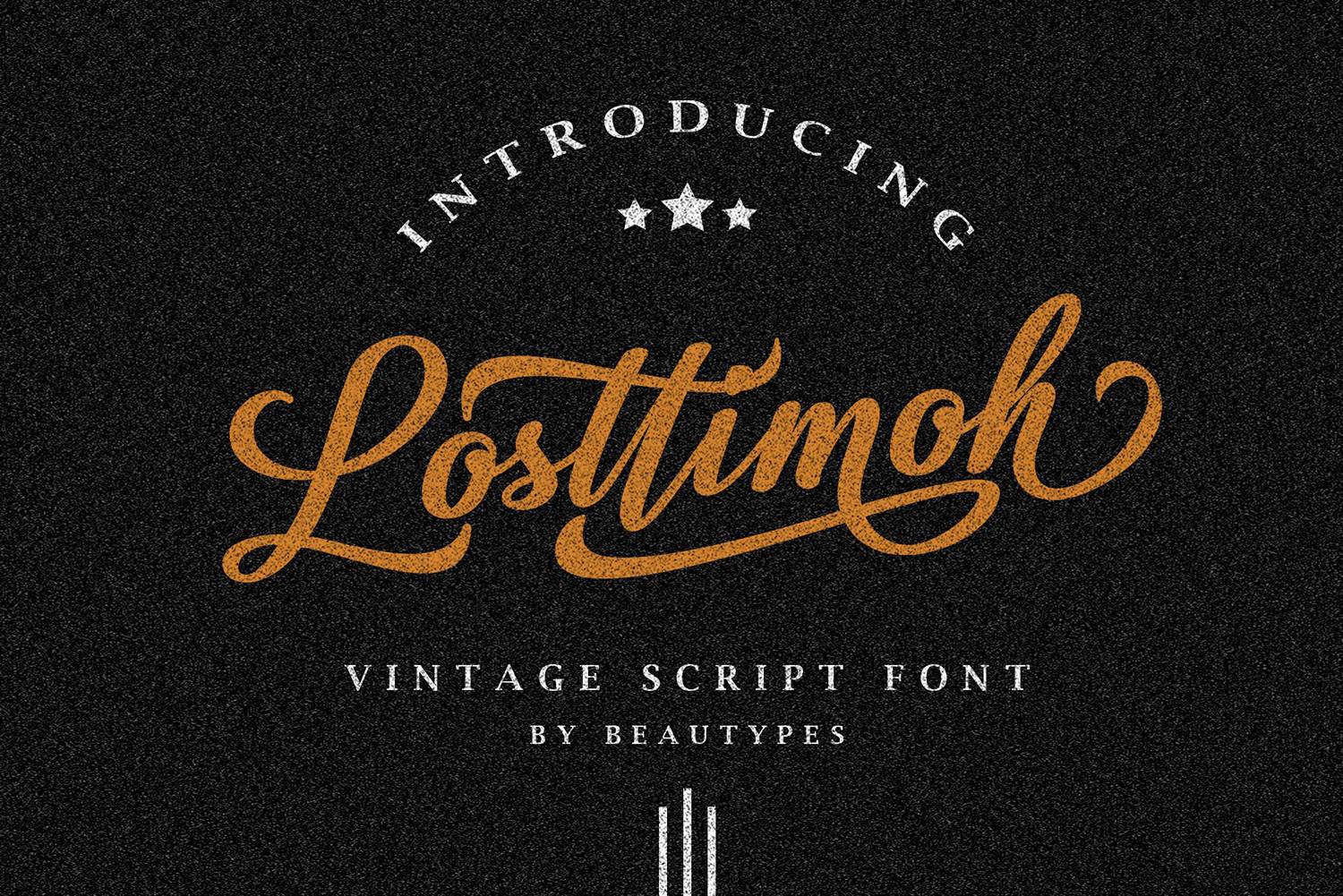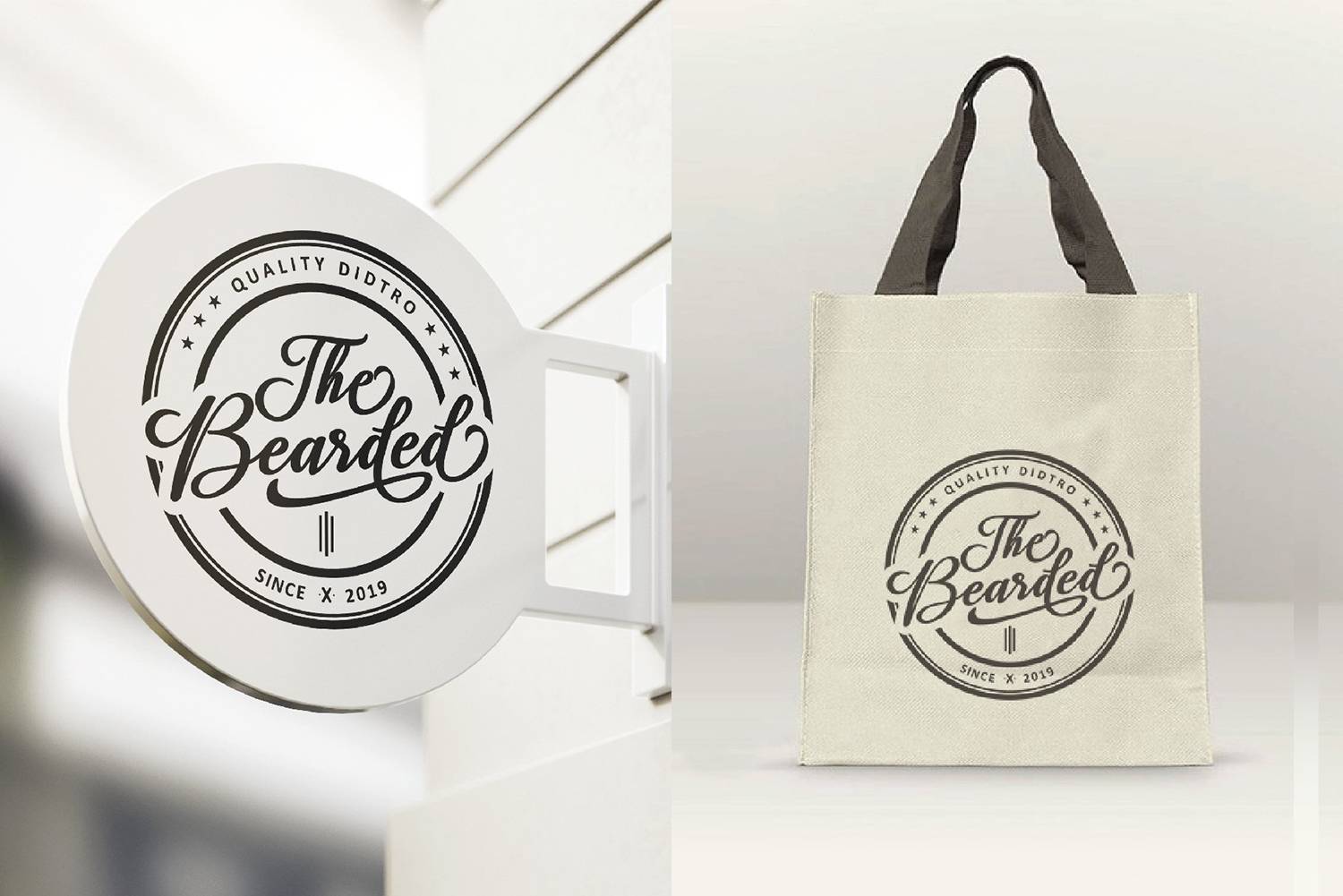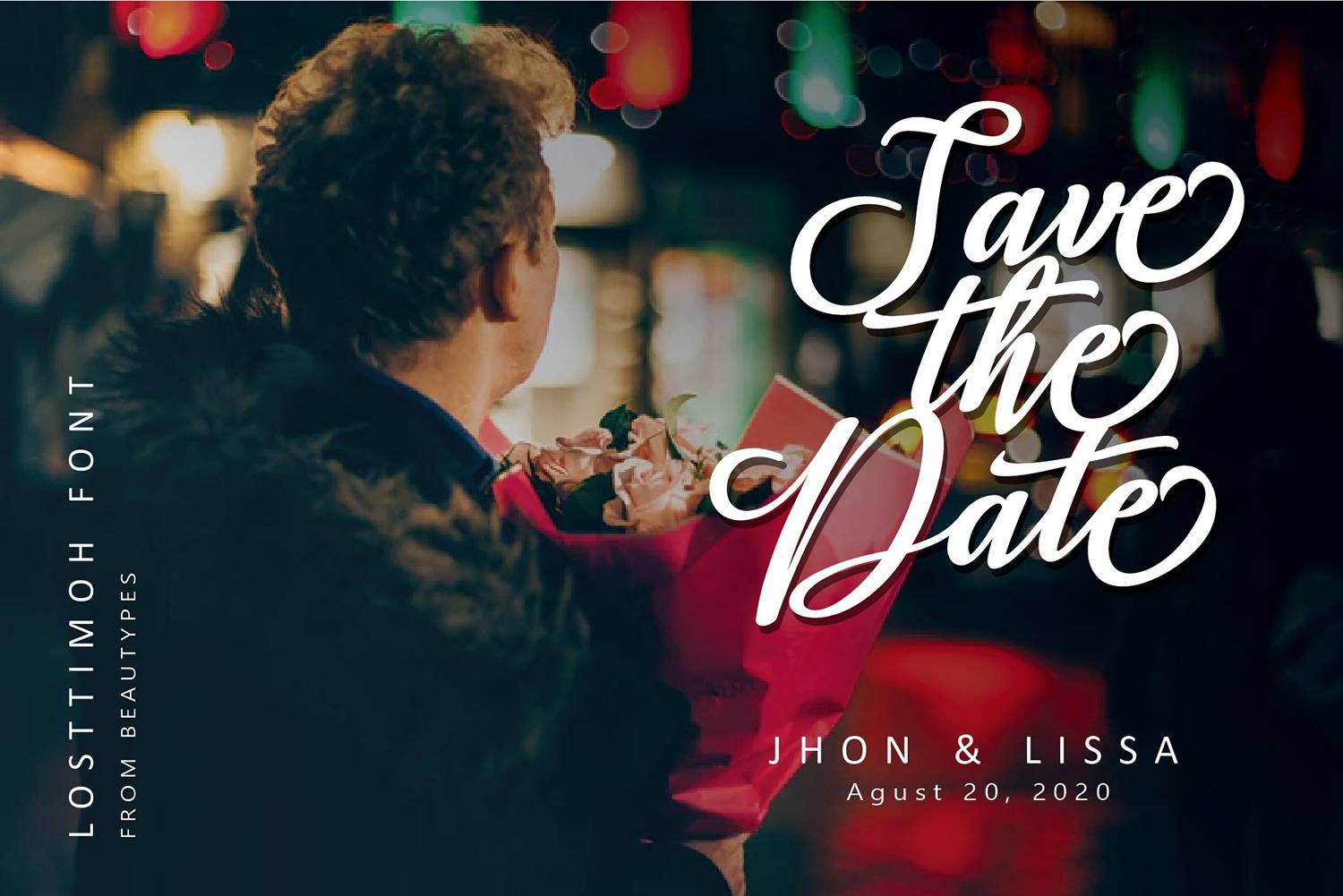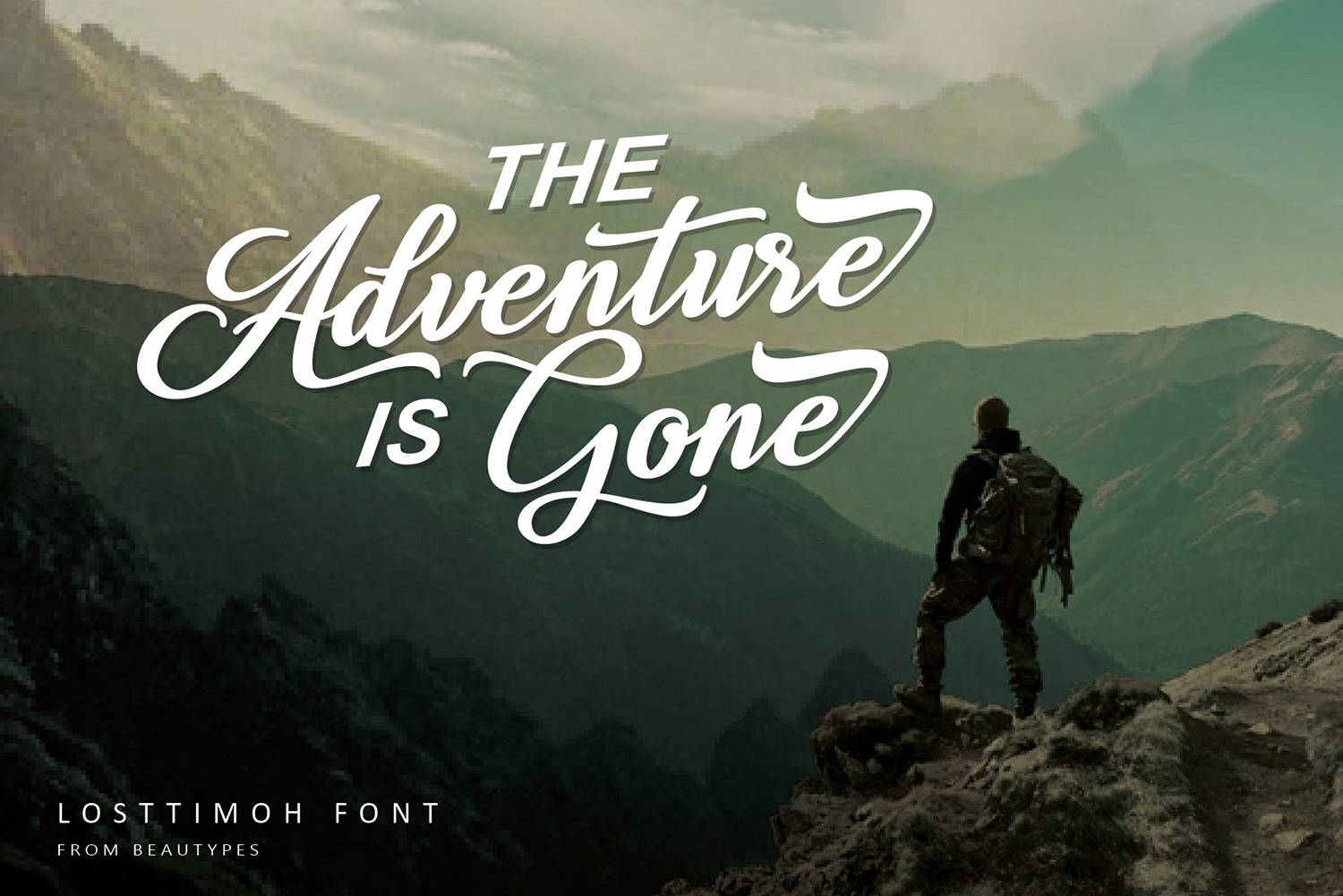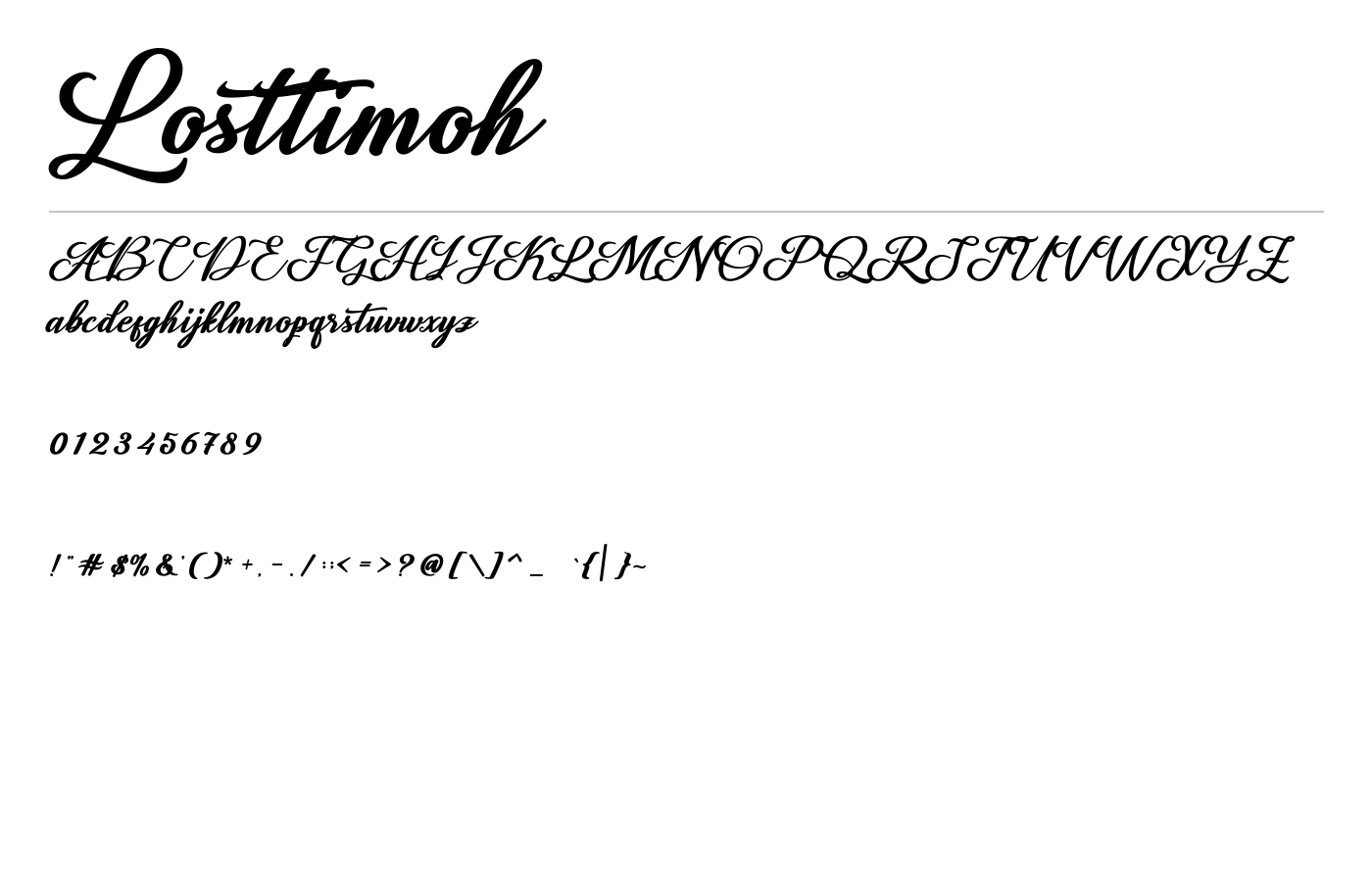
Losttimoh is a graceful script font featuring elegant, flowing letterforms with moderate contrast and smooth, calligraphic strokes. Its refined style and connected characters give it a sophisticated, handwritten feel, making it ideal for luxury branding, invitations, and stylish logo designs where a touch of classic charm is desired.
Losttimoh Font
About Losttimoh Font
| Font family | Losttimoh Font |
| Release date | 2019-08-03 |
| Designer | Rizaldi Wandani |